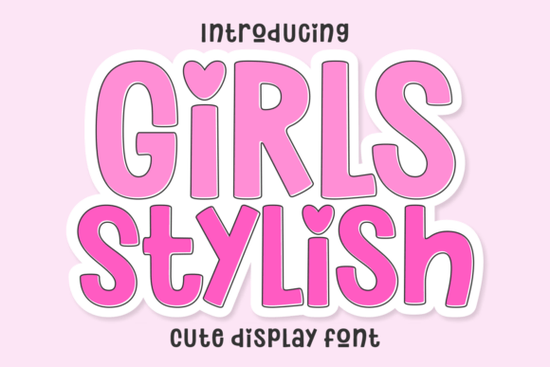
If you're looking for a playful, eye-catching font that brings warmth and whimsy to your designs, Girls Stylish Font might be exactly what you need. Designed with a cartoonish flair and bold, chunky outlines, it’s inspired by comic book aesthetics but softened with charm like a cheerful rabbit hopping through your layout. Whether you’re creating greeting cards, children’s book illustrations, or branding for a boutique product line, this display font adds instant personality without overwhelming your message.
What makes Girls Stylish Font stand out?
Unlike many display fonts that lean heavily into trends, Girls Stylish balances fun with readability. Its thick strokes and rounded terminals give it a friendly, approachable feel perfect for projects targeting kids or anyone who appreciates lighthearted design. The font includes carefully crafted accents that support multiple languages, so your invitations, labels, or packaging can resonate across different audiences while keeping that joyful vibe.
It’s especially effective as a headline or title font. Because of its bold weight and distinctive letterforms, it grabs attention quickly but doesn’t sacrifice clarity. That makes it ideal for seasonal promotions (think Easter baskets or birthday party invites), quote graphics, or even logo concepts for small businesses in the lifestyle, toy, or gift sectors.
Who should use this font?
Print-on-demand sellers will find Girls Stylish great for mugs, T-shirts, and wall art featuring uplifting quotes or kid-friendly phrases. Small business owners crafting product labels for handmade soaps, cookies, or greeting cards can use it to convey warmth and authenticity. Illustrators and book designers working on children’s stories will appreciate how it complements hand-drawn elements without competing for attention.
Even hobbyists making DIY party decor or scrapbook layouts can bring extra cheer to their projects. The font’s clean yet characterful design ensures it works well both digitally and in print no fuzzy edges or awkward spacing issues when scaled down for stickers or up for posters.
How does it compare to other playful display fonts?
If you’ve explored Creative Fabrica’s collection, you might already know fonts like Dango, which offers a bubbly, rounded aesthetic, or Eleanor, with its elegant script-meets-display hybrid style. For a more retro punch, Block Retro delivers vintage energy, while Lumina Inline adds delicate line detailing for a refined look.
Girls Stylish sits comfortably between cartoon and classic it’s not as bubbly as Dango, nor as ornate as Lumina, but it has more bounce than Block Retro and more structure than Eleanor. This middle ground is why it’s so versatile: it feels fresh without being gimmicky, and cheerful without seeming childish.
Tips for using Girls Stylish effectively
- Pair it wisely: Use a simple sans-serif (like Montserrat or Open Sans) for body text to let the font shine without visual clutter.
- Avoid all caps for long phrases: While it looks great in title case or short uppercase words, extended all-caps blocks can reduce legibility.
- Use color thoughtfully: Pastels enhance its gentle charm; bright primaries amplify its comic-book roots. Test contrast for readability, especially on light backgrounds.
- Check language support: Though it includes multilingual characters, verify specific glyphs if you’re designing for non-English audiences.
Final thought: When joy matters, typography helps
Design isn’t just about looking good it’s about feeling right. Girls Stylish Font succeeds because it doesn’t just look cute; it evokes emotion. In a world where branding often leans minimalist or corporate, adding a touch of sincere playfulness can make your work memorable. Whether you’re launching a new product line or personalizing a birthday card, this font offers a genuine way to connect.